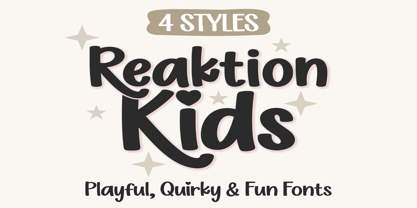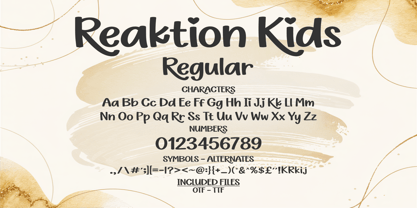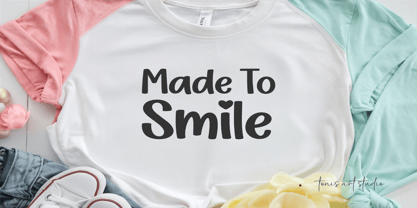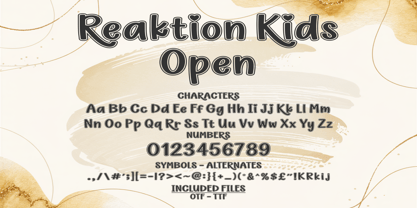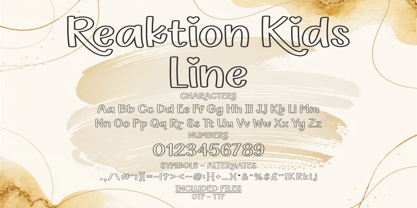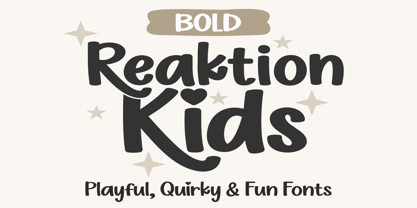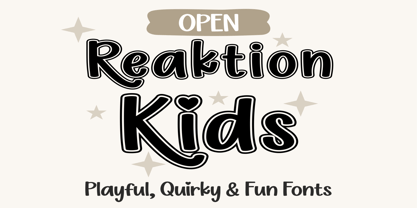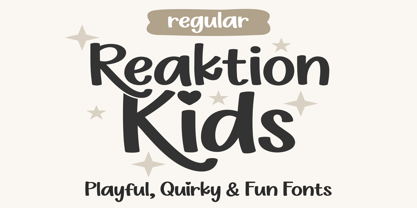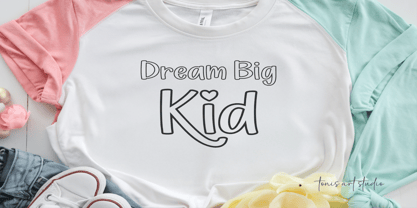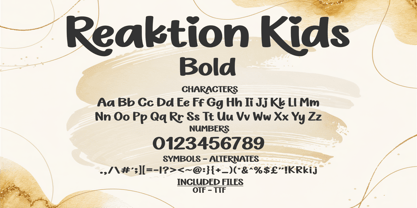
Reaktion Kids
The Reaktion Kids Font Family was designed by Tony Balios and published by Tonis Art Studio. Reaktion Kids contains 4 styles and family package options. More about this family
Reaktion Kids Font Family includes Reaktion Kids Regular, Bold, Line, and Open, a cheerful and playful typeface created to bring fun, warmth, and creativity to your designs. With rounded letterforms, smooth curves, and a friendly handwritten feel, this font family is perfect for kids’ projects, classroom crafts, children’s apparel, and joyful Cricut creations. A sweet standout detail? Heart-dot alternate characters for the letters “i” and “j”, adding a cute and whimsical touch to your designs. These alternates are perfect for playful quotes, kids’ names, Valentine-inspired projects, and designs that need a little extra charm. Whether you’re creating birthday invitations, nursery wall art, t-shirt designs, stickers, or school-themed projects, Reaktion Kids offers four versatile styles that can be mixed, matched, and layered to create eye-catching results with ease. With its modern yet playful personality, this font family is ideal for lifestyle crafters, digital designers, teachers, and Etsy sellers looking for fonts that feel fun, friendly, and full of character.